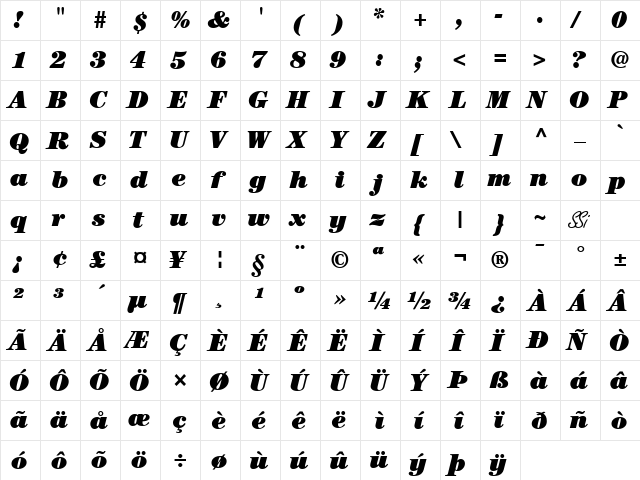
Century Black SSi Black Italic
Design Context for Century Black SSi Typeface
Century Black SSi takes a measured approach to typography — its balanced proportions and neutral character make it a reliable workhorse for both digital and print work. The dynamic lean of this cut emphasises speed and emphasis in any layout.
Pro Tip: Try Century Black SSi for annotation and caption copy alongside an upright companion — the contrast in angle creates a dynamic but ordered typographic system.